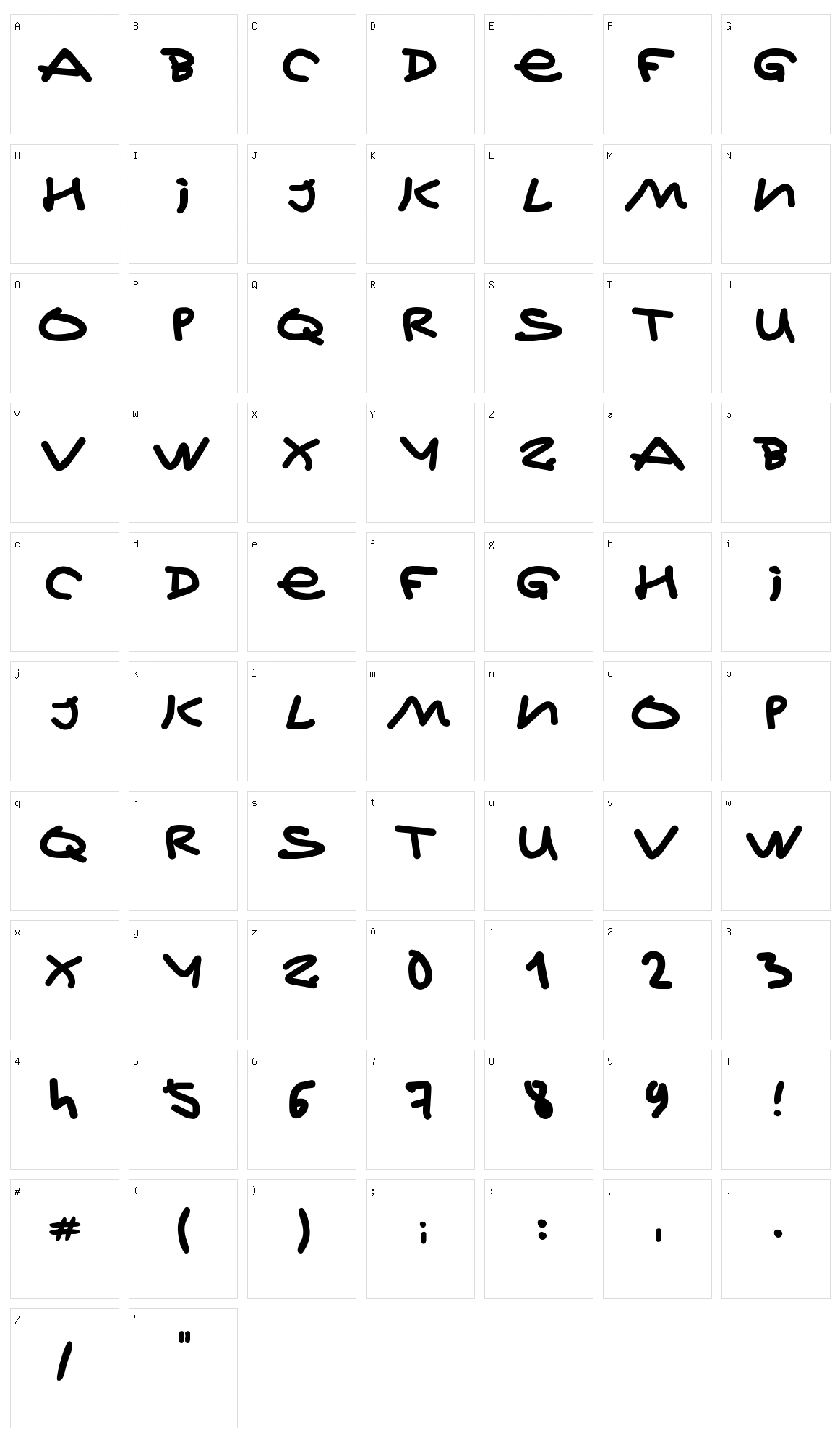
JEFF KOvALSKY jest czcionk¹ darmow¹.
Zawiera zestaw cyfr i liter (tylko wielkich - tak¿e polskich) oraz
kilku najbardziej przydatnych znaków interpunkcyjnych...